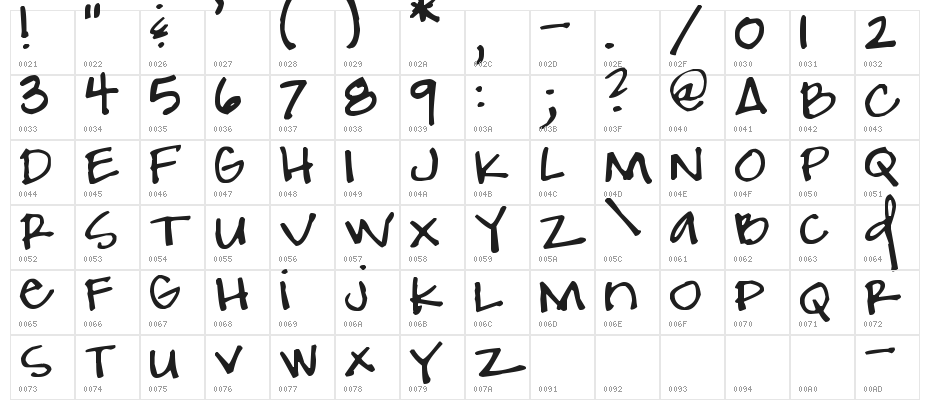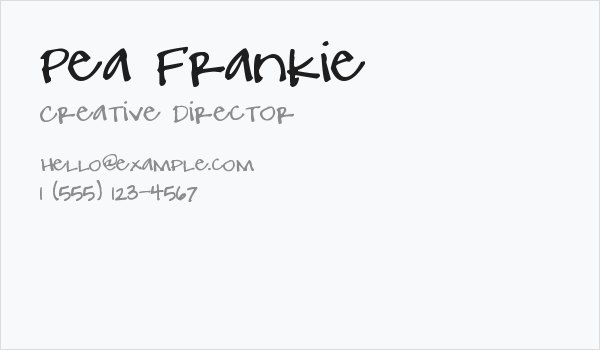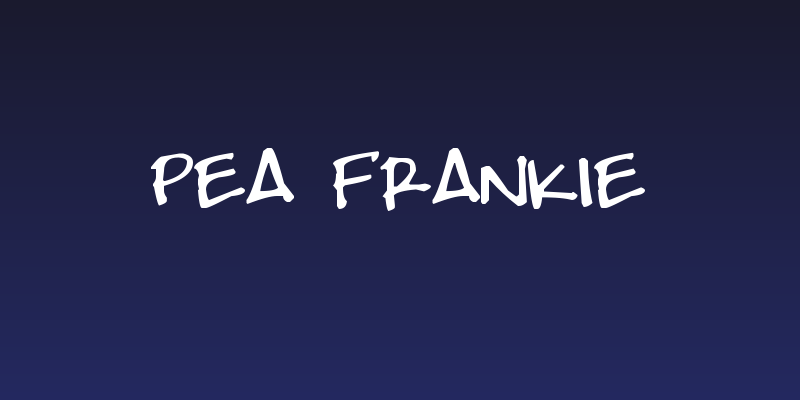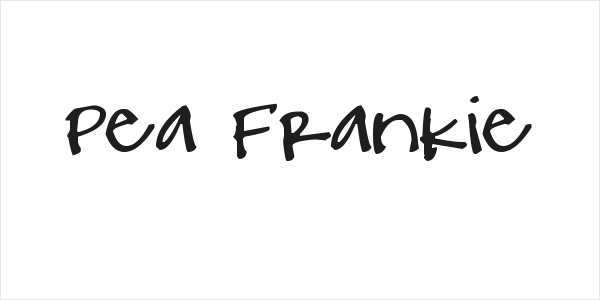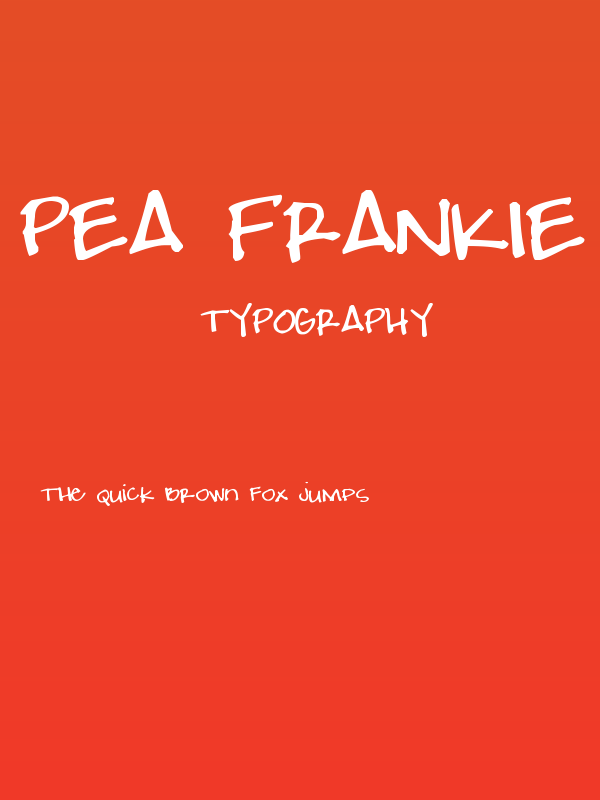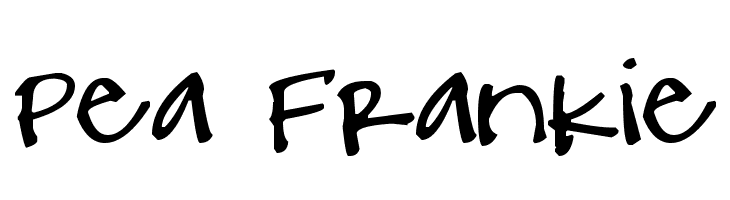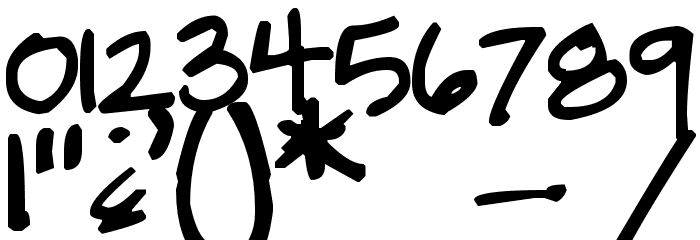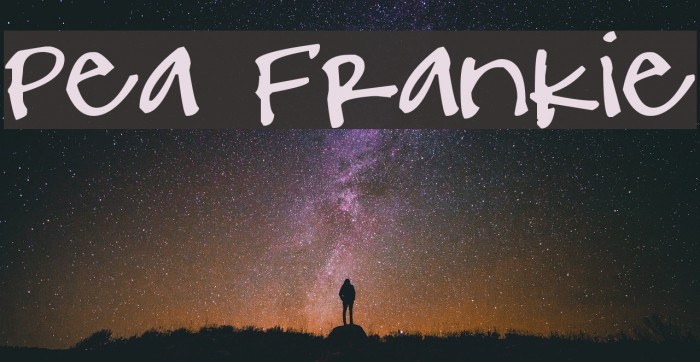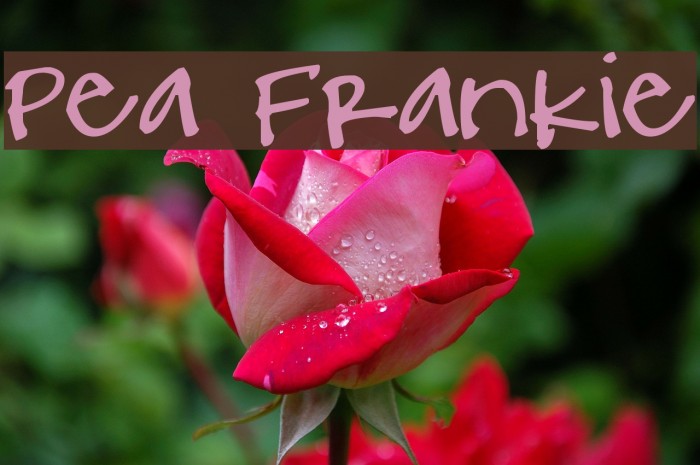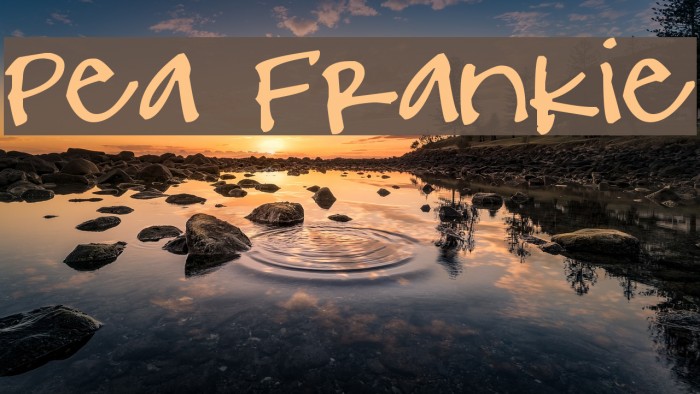
Pea Frankie Font
Pea Frankie Description
This font exhibits a playful and casual handwritten style, characterized by its bold and slightly irregular strokes. The letters have a natural flow, with some characters featuring unique loops and curves that add to its informal charm. The uppercase and lowercase letters maintain a consistent style, while the numbers and special characters complement the overall aesthetic. This font's lively appearance makes it suitable for projects that require a personal touch or a sense of spontaneity.
| Proposed Projects | Ideal for greeting cards, personal invitations, children's book covers, and creative branding projects. |